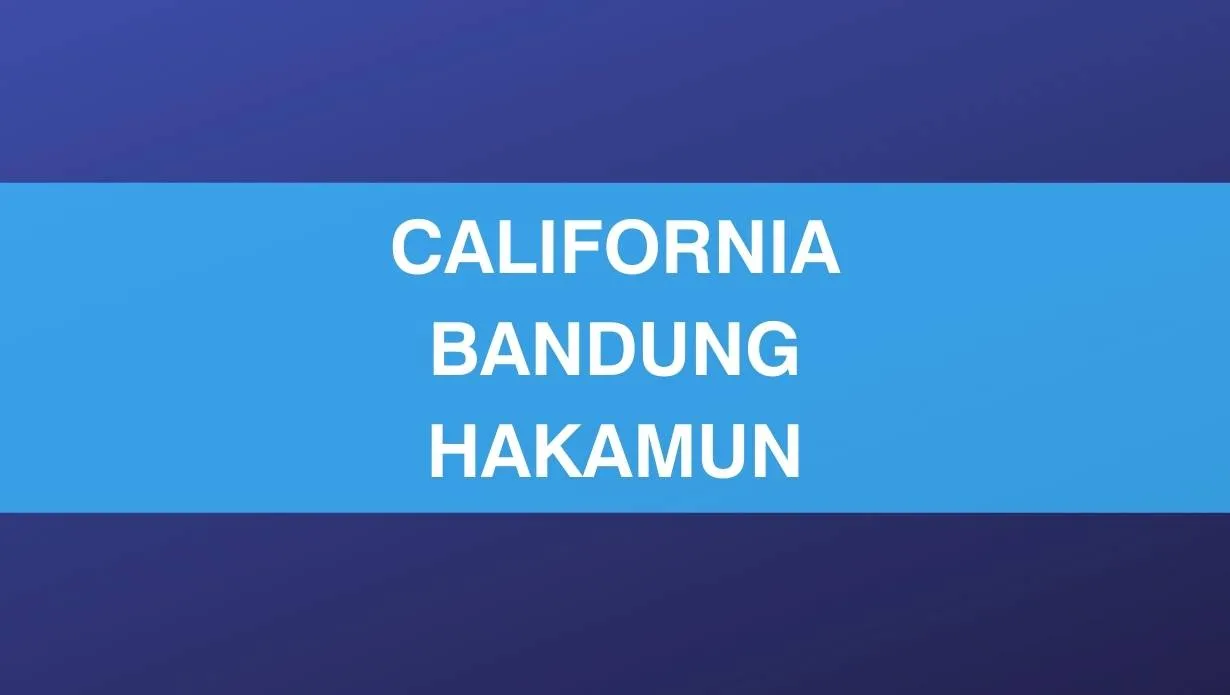
Swiss 721 BT Font, created by Max Miedinger in 1977, is a popular sans serif typeface utilized in digital and print media. Known for its clean and modern appearance, this font is highly versatile and commonly used for body text, headlines, and titles. If you seek a font that offers a sleek and contemporary style for your designs, Swiss 721 BT Font is the perfect choice.
This Font is a great choice for both web and print design projects. It is easy to read and has a simple, clean aesthetic. This font style has unique glyphs to get a new shape to make a pair with Avenir Next Font.
View of Swiss 721 BT Font